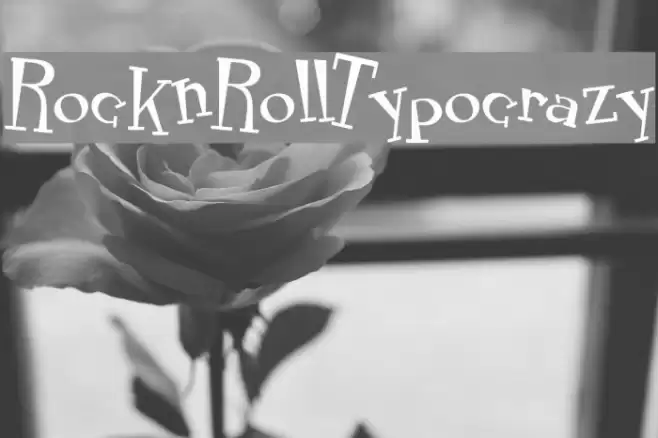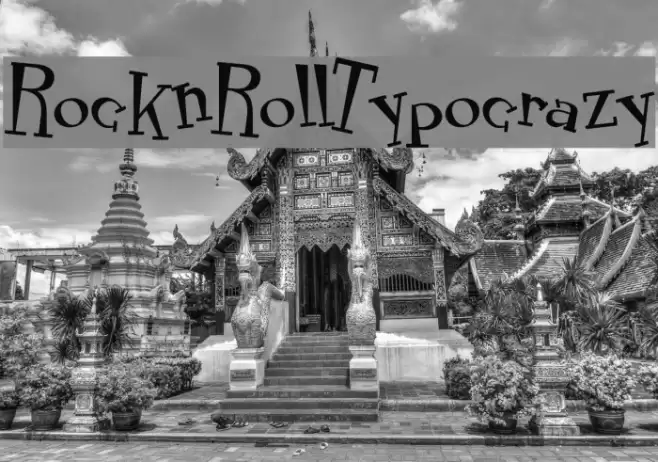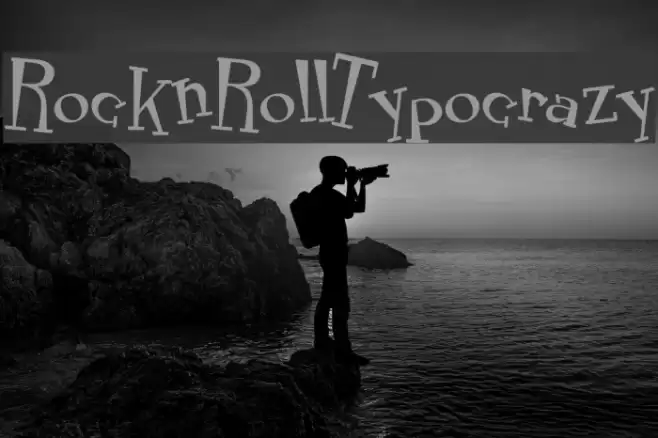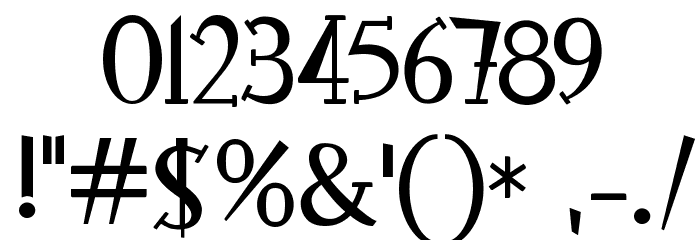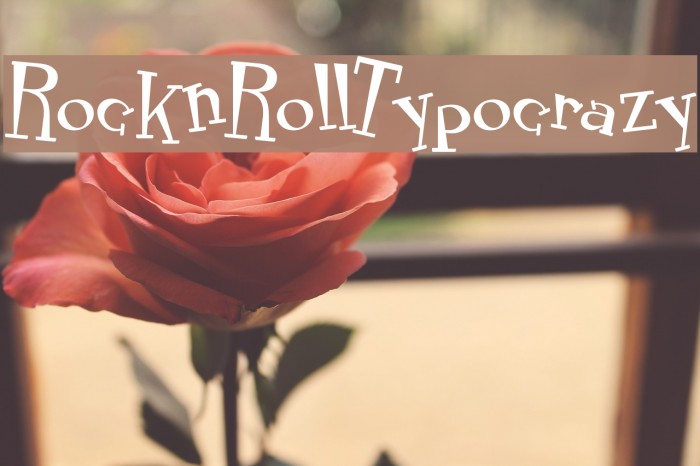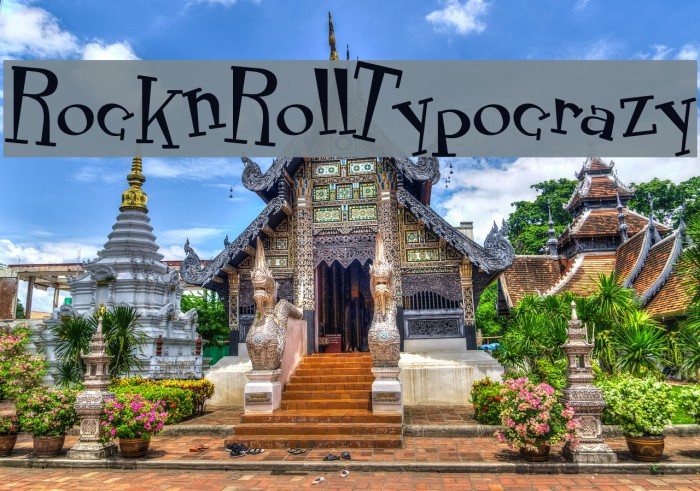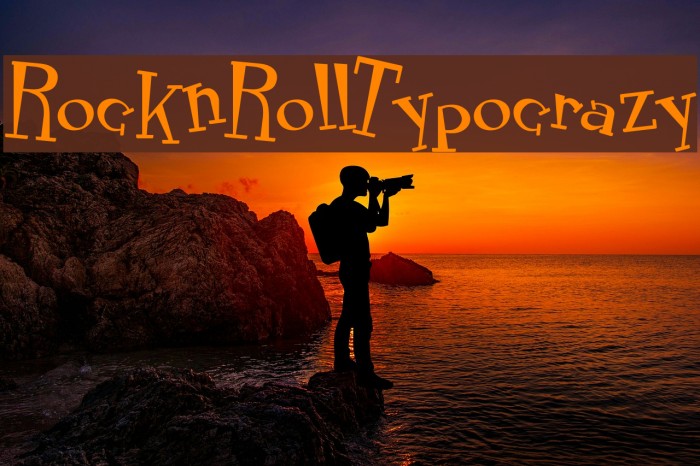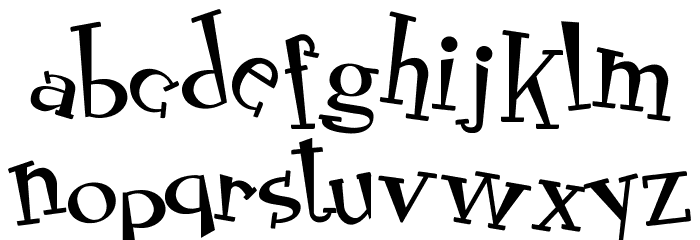
RocknRollTypocrazy Font
RocknRollTypocrazy Description
This font exudes a playful and whimsical energy, characterized by its irregular and quirky letterforms. Each character seems to dance on the baseline, with varying angles and curves that create a sense of movement and spontaneity. The uppercase letters are bold and dynamic, while the lowercase letters maintain a consistent yet lively style. The numerals and special characters follow suit, adding to the overall eccentric and fun aesthetic. This font is perfect for projects that require a touch of humor and creativity, making it ideal for children's books, playful branding, or eye-catching posters.
A playful and whimsical font with irregular, dynamic letterforms from Cartoon fonts.
- Proposed Projects: Ideal for children's books, playful branding, and eye-catching posters.